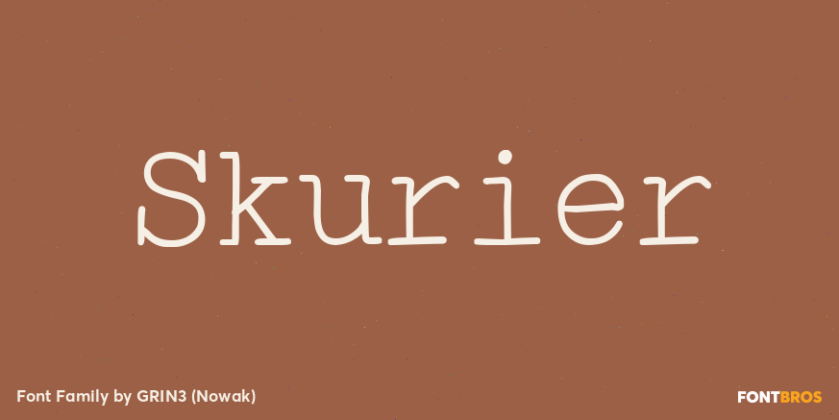
HomeFont BrosHandwrittenSkurier HandwrittenSerif Skurier FacebookXPinterestWhatsApp 1 of 1 About Skurier is a hand-drawn font inspired by monospaced fonts like Courier. Language support includes Western, Central and Eastern European character sets, as well as Baltic and Turkish languages.  DOWNLOAD NOW People also explored Efflorescence Font Hamble Font Family Font Riposte CornerOne Font Christmas Spectacular Font Julietano Font Tortilla Font Bright Confetti Font 362 0 TagsSkurierSkurier Font Previous articleGrocery BrushNext articleBeauty Script LEAVE A REPLY Cancel reply Comment: Please enter your comment! Name:* Please enter your name here Email:* You have entered an incorrect email address! Please enter your email address here Website: Save my name, email, and website in this browser for the next time I comment. Personal Use Free Shawaki Personal Use Free Read more about this font Cute Messy Personal Use Free Read more about this font Sunbright Font Personal Use Free Read more about this font BD AsciiMax Personal Use Free Read more about this font BLOG Fonts That Capture the Spirit of New York City New York City is more than just a place—it’s an experience, a rhythm, a visual language... How to Cut Any Font on Cricut: Convert a Font to SVG (Free) How to Install and Use Fonts on Windows, macOS, and Web Projects Top 10 Handwritten Fonts That Elevate Your Designs